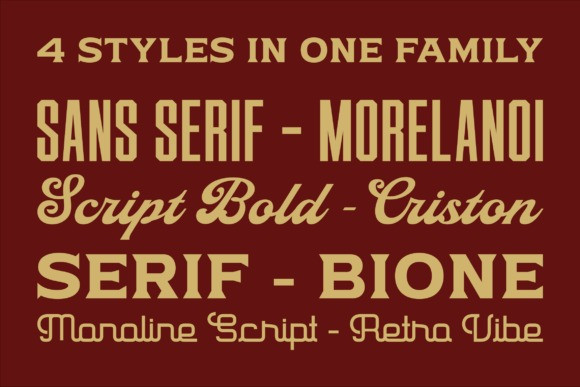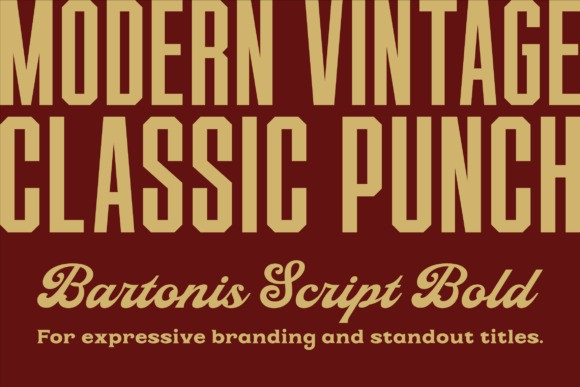
Bartonis Font
Bartonis Font is a vintage font family pack that blends classic charm with a clean modern touch. Bold, smooth letterforms and elegant curves make this typeface perfect for designs that need to feel nostalgic, stylish, and memorable at the same time.
In one download you get 4 matching styles: Script Bold, Sans Serif, Serif, and Monoline Script. You can easily mix them in one project—use the bold script for the main logo, the serif for taglines, the sans serif for supporting text, and the monoline script for subtle accents. This creates a strong, cohesive brand look without searching for extra fonts.